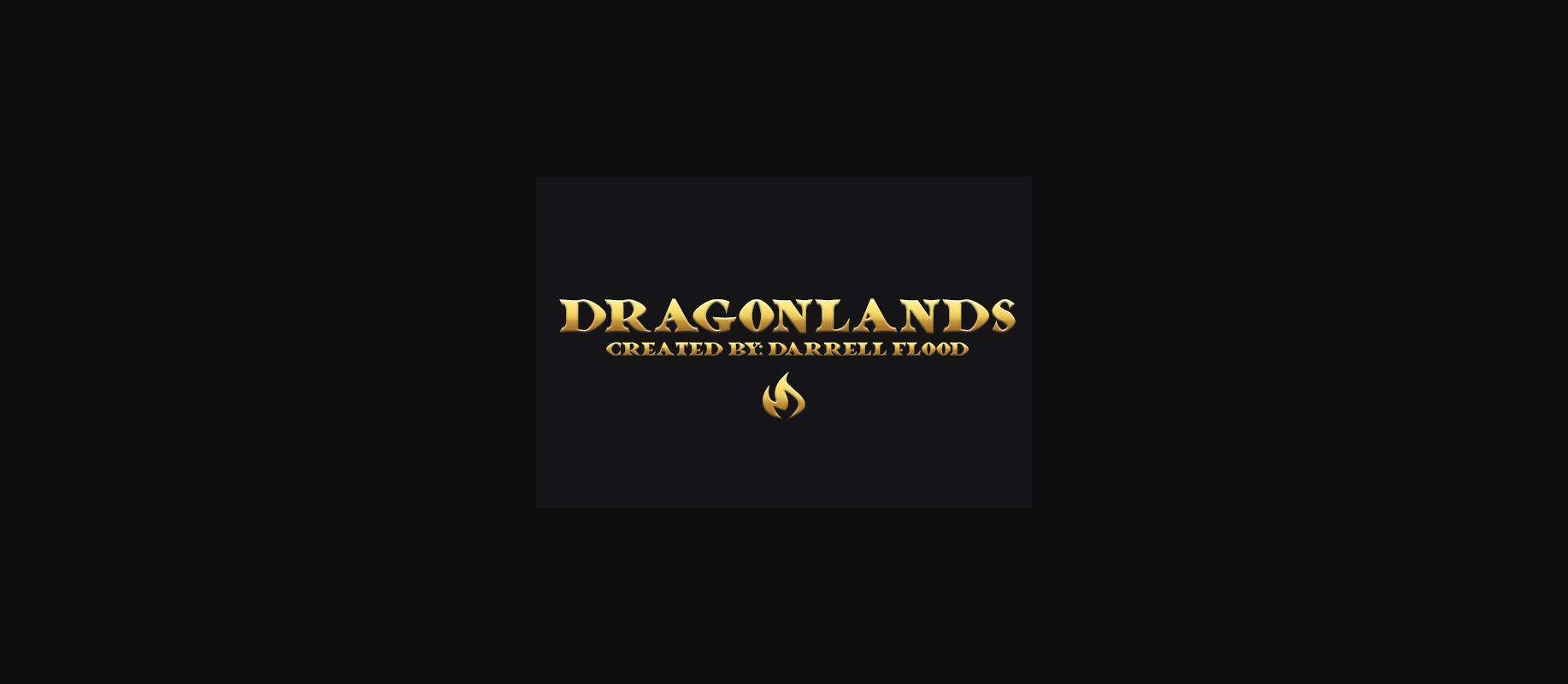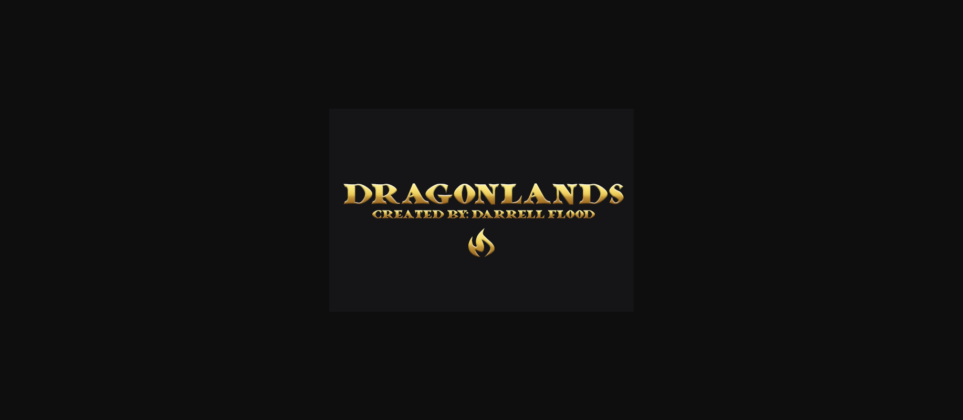
HomeDecorative FontsDragonlands Font Decorative Fonts Dragonlands Font FacebookXPinterestWhatsApp 1 of 1 About Dragonlands Font A fantasy font with weighty archaic stylization. Perfect for dungeon adventures! Font created by Darrell Flood. DOWNLOAD NOW People also explored Memoria Family Font St Patrick’s Day Daisy Font Holiday Font Hello Winter Aho Yaha Font Roselyn Font Roxxane Font Valentine Chocolate Afissta Font 347 0 TagsDragonlands Font Previous articlePryma FontNext articleTechnotot Font LEAVE A REPLY Cancel reply Comment: Please enter your comment! Name:* Please enter your name here Email:* You have entered an incorrect email address! Please enter your email address here Website: Save my name, email, and website in this browser for the next time I comment. Personal Use Free Critical Personal Use Free Read more about this font Ernesthuge Personal Use Free Read more about this font Messy Personal Use Free Read more about this font Deling Personal Use Free Read more about this font BLOG Best Fonts for YouTube Videos: Make Your Thumbnails Stand Out Best Fonts for YouTube Videos: Make Your Thumbnails Stand Out Choosing the right font can make a massive difference in how your YouTube videos perform.... Elegant Wedding Invitation Fonts – Handwritten & Script Fonts Exploring Font Trends Top 10 Handwritten Fonts That Elevate Your Designs